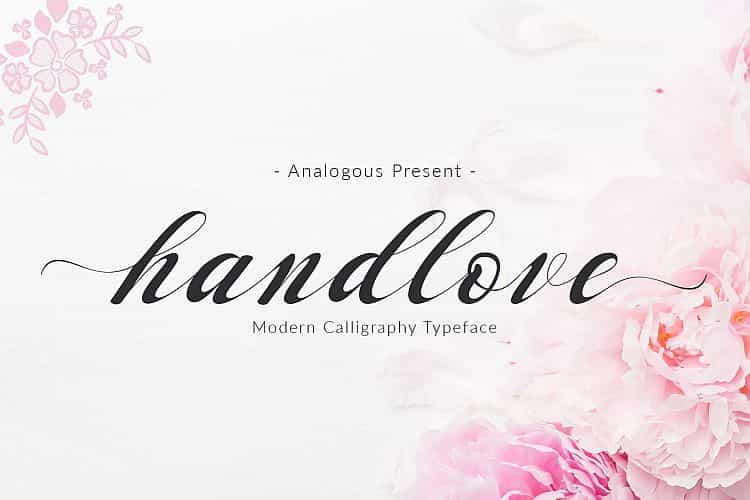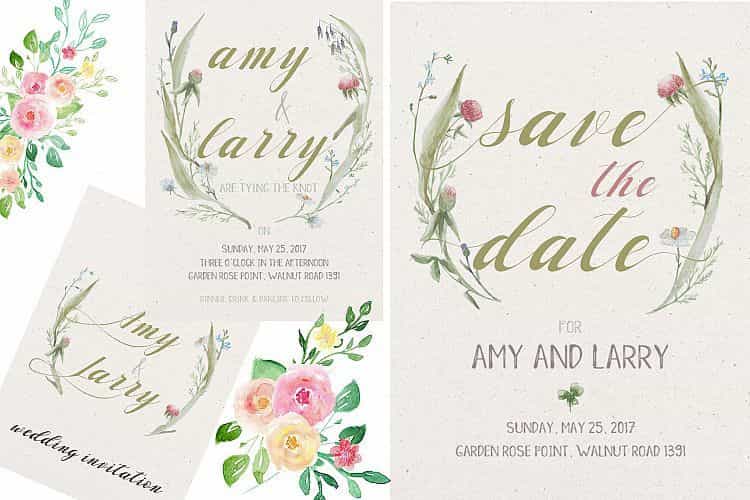
Handlove Font created by Analogous is now here! The Handlove Script Font is a beautiful calligraphy modern script style, it has decorative characters and the baseline dances!Thus, it becomes so lovely on invitation like greeting cards, branding materials, business cards, quotes, posters and other things.